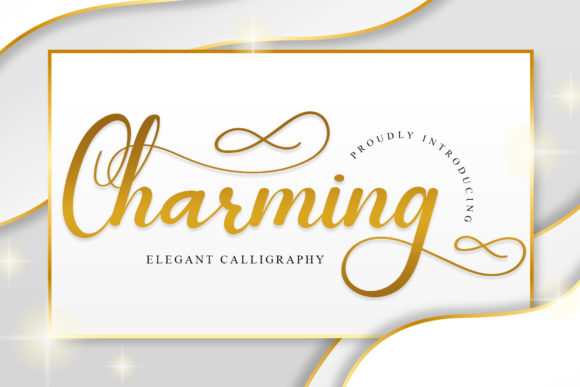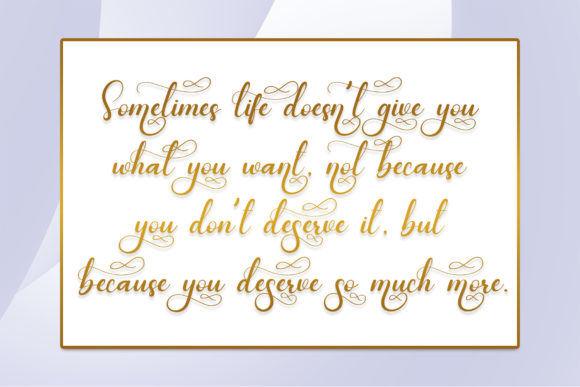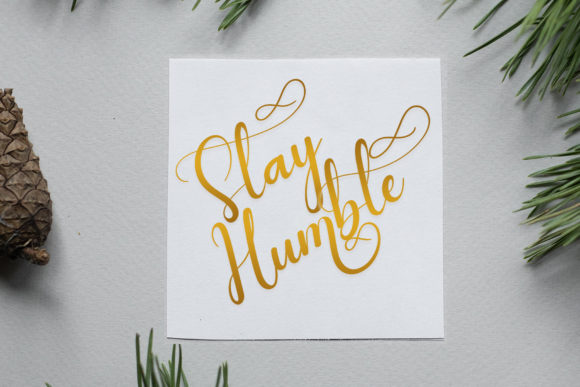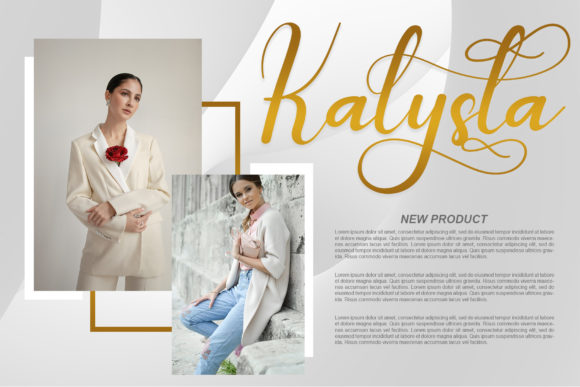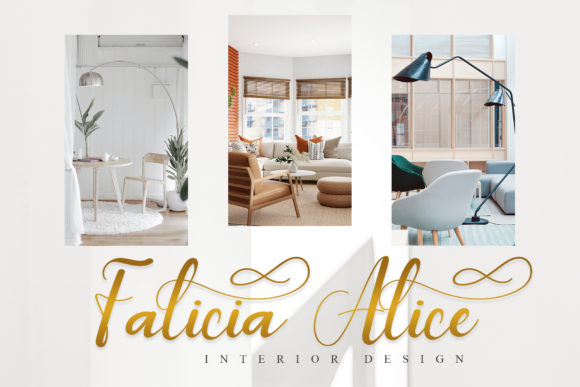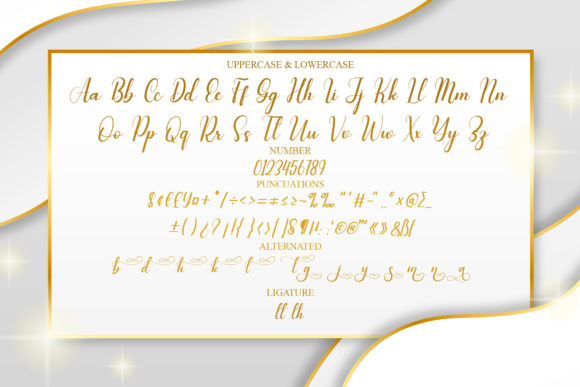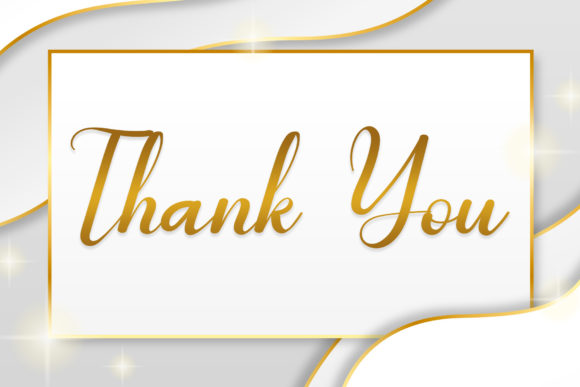
Charming Font
About Charming Font
Charming is a captivating calligraphy typeface that effortlessly combines romance with a touch of sweetness. Its unique charm lies in the way its characters elegantly dance along the baseline, creating a fluid and dynamic visual rhythm.
The font’s casual yet refined demeanor makes it a versatile choice for a variety of design projects.
In wedding invitations, Charming sets the stage for a romantic celebration. Its flowing strokes and graceful curves evoke a sense of love and joy, setting the perfect tone for the special day.
Branding projects benefit from Charming’s elegant touch. Logos, packaging, and visual identities designed with this font exude sophistication and allure, making your brand stand out in a crowd.
Greeting cards become heartfelt expressions with Charming’s artistic calligraphy. Its delicate yet impactful style elevates your messages and sentiments, leaving a lasting impression on the recipient.
Quotes take on a new level of beauty when adorned with Charming’s unique characters. The font’s graceful movement and playful swashes enhance the visual impact of your words, turning them into works of art.
The PUA encoding of Charming empowers you to access a wealth of glyphs and swashes, allowing you to customize and embellish your designs with ease. This feature invites you to infuse your projects with your own creative flair and personal touch.
In summary, Charming is a romantic and sweet calligraphy typeface that adds a touch of elegance and casual allure to your designs. Its dancing characters and PUA encoding make it a versatile choice for wedding invitations, branding, greeting cards, quotes, and various creative projects. With Charming, you have the tools to create captivating and heartfelt designs that resonate with emotion and beauty.